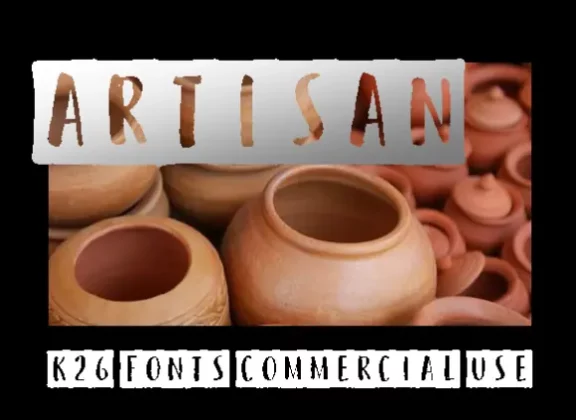
K26 Artisan Font
The K26 Artisan has black ink-lettered box characters with a European flair for craft labels, photo captions, and scrapbooking projects.